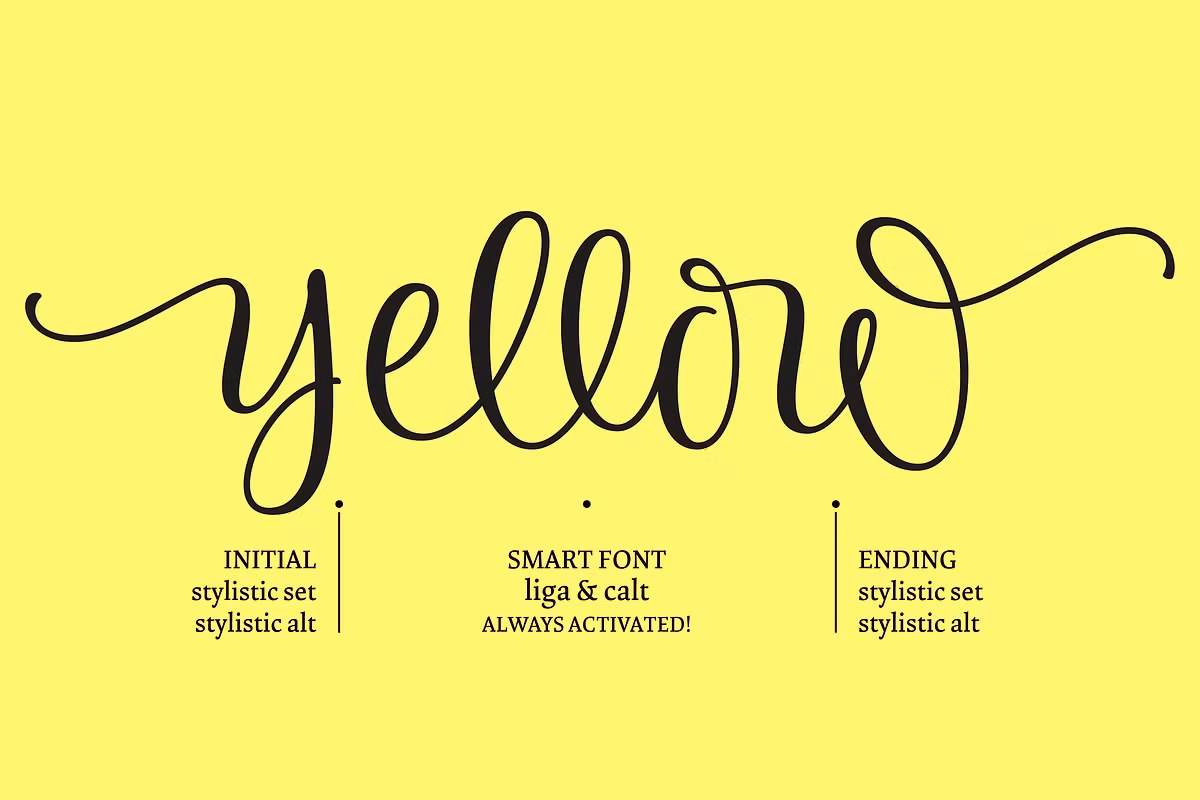
Add a personal touch to your designs with Limon Script Regular Font Free Download. This elegant, handwritten script font features smooth, flowing strokes and a modern calligraphy style, making it perfect for invitations, branding, logos, social media graphics, and any project that requires a sophisticated yet approachable feel.
Limon Script Regular combines classic cursive letterforms with a relaxed, contemporary flow, offering an elegant yet readable design. It includes uppercase and lowercase letters, numerals, punctuation, and ligatures—ideal for experimenting with stylish, personal layouts in both print and digital formats.